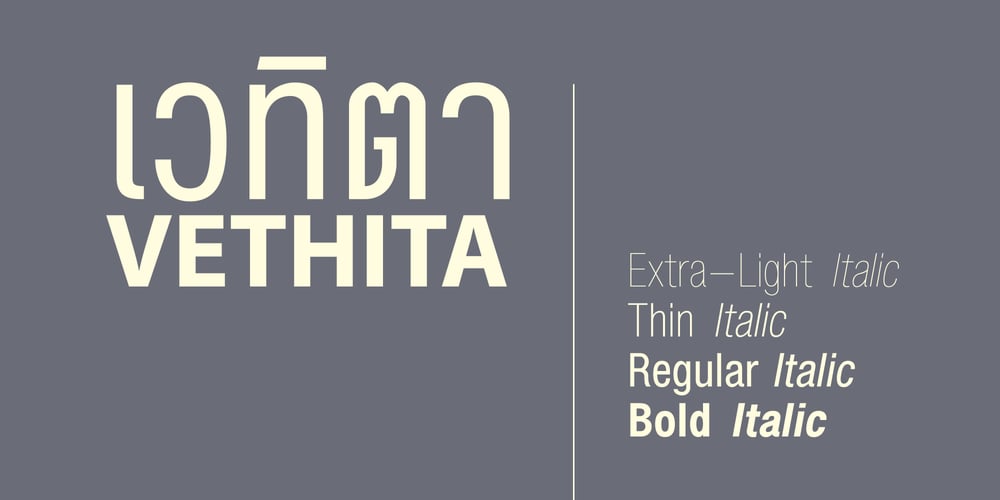
Vethita
Vethita font
Vethita Font Family was designed by Pornthep Luckanawat and published by ComGlyph. Vethita contains 8 styles and family package options. Vethita : is a sans-serif font designed to be a modern Thai font, while still being easy to read because it retains the original structure of the language, preventing confusion with certain characters.Currently, Vethita typeface includes :- 4 different weights: Extra Light, Thin, Regular, Bold- Italic style for each weight